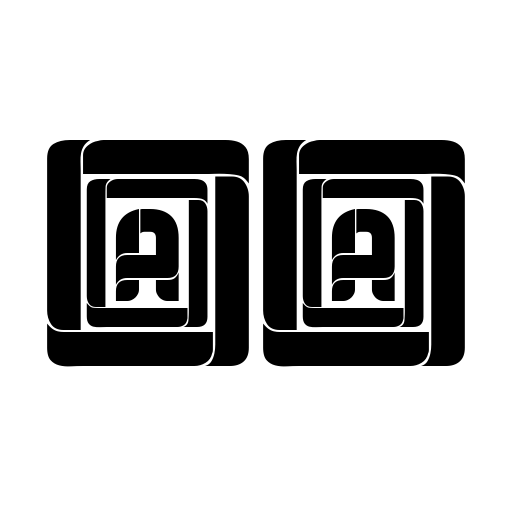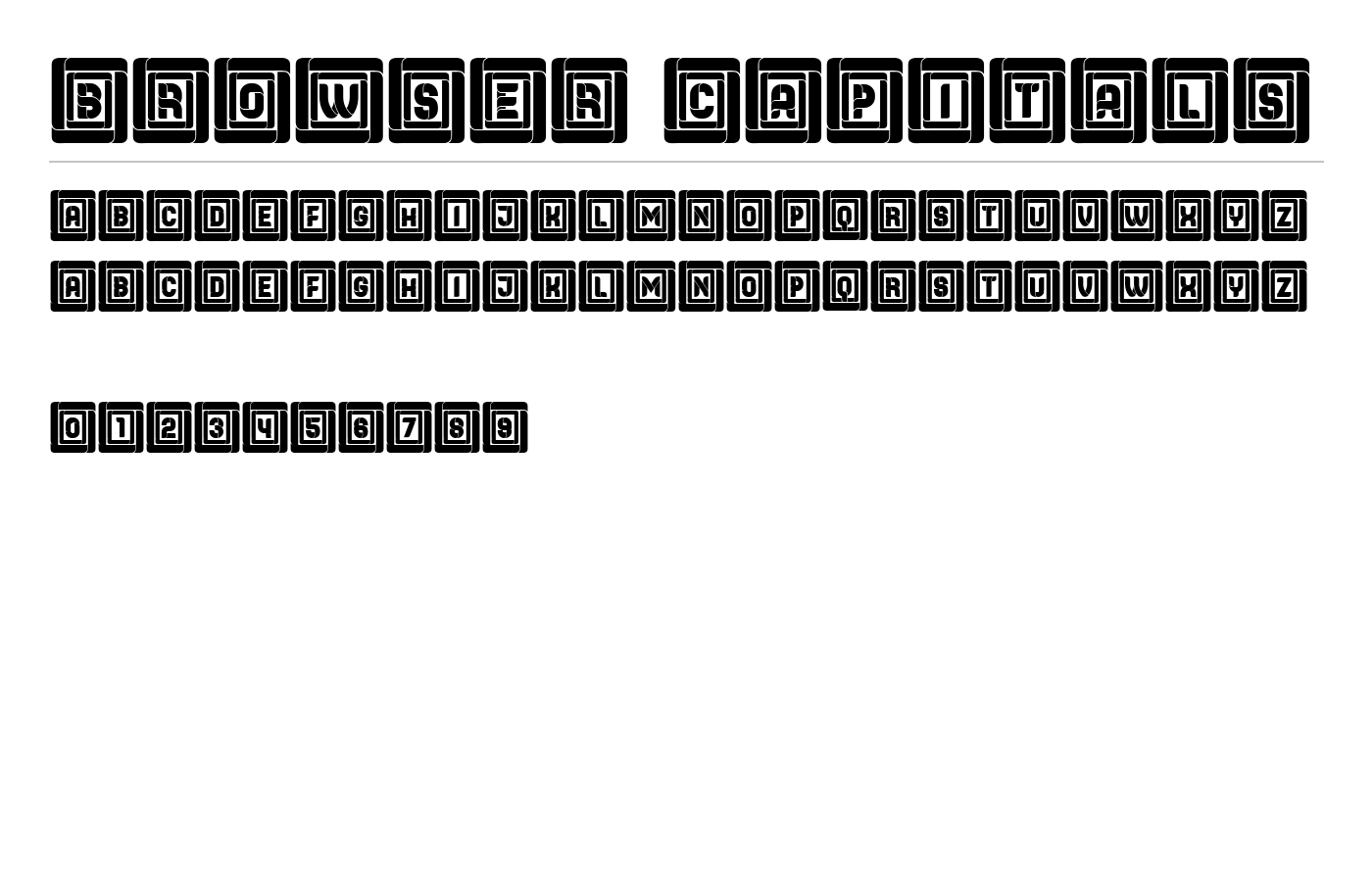
Browser Capitals is a bold, decorative display font that features blocky, geometric letterforms enclosed within layered square shapes, giving it a layered, almost three-dimensional effect. Its consistent weight and high contrast strokes combined with the stylized framing make it perfect for eye-catching headlines, logos, or branding that demands a modern and tech-inspired look with a playful, digital vibe. This font works best in contexts where a strong, unique visual identity is needed, such as posters, gaming and tech brands, or contemporary editorial designs.
Browser Capitals Font
About Browser Capitals Font